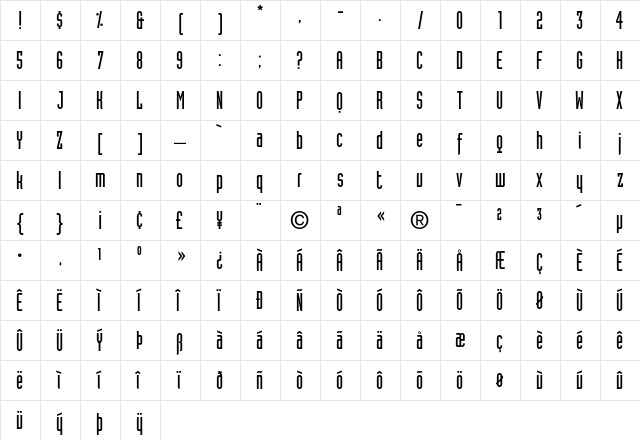
Industria Solid A Font Preview
Industria Solid A
Industria Solid A Font Details
Design Context for Industria Typeface
Industria takes a measured approach to typography — its balanced proportions and neutral character make it a reliable workhorse for both digital and print work.